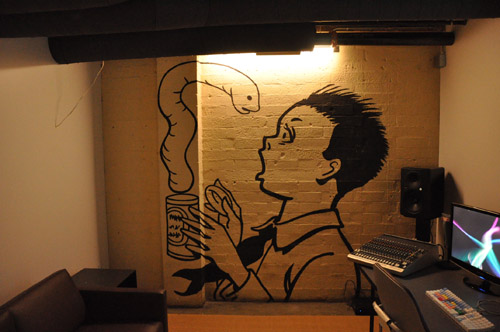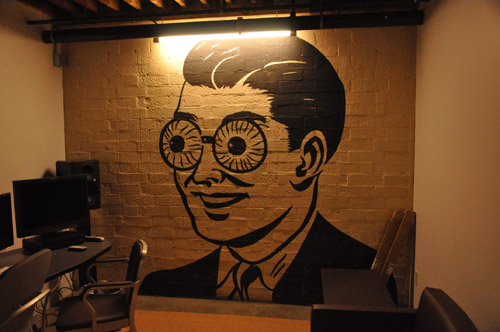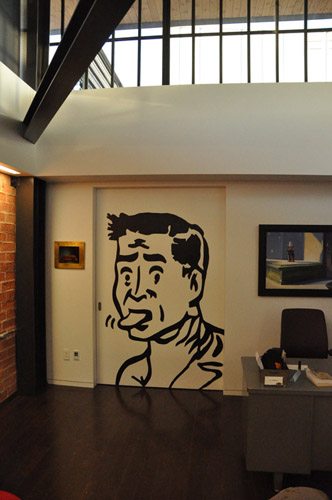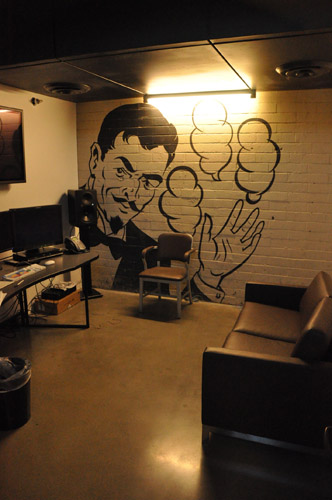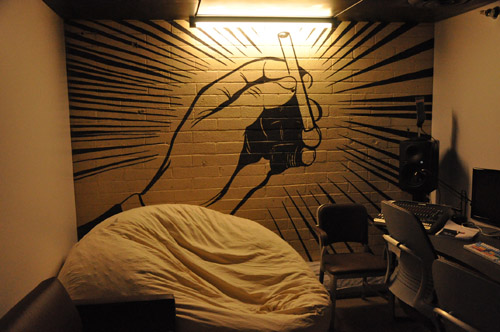
I just finished the last of 5 wall graphics for the new offices J.J. Abrams , director of Star Trek .
Nice clean job Roderick.........real retro.........looks like a fun job to do..........Working on brick is always a challenge.
Cooool!
Were you inspired by something in particular? They all look familiar. Maybe just similar to carnival signs...
The first three came out of a magic old book. Unfortunaly I don't remember the title. I don't know about the others , maybe the same book. We were given the images to paint. The other cool thing about the building there in is he has an old platen press and all the type to print with. I am hoping to be able to go there and run it. I had the honor of learning how to use one in high school.